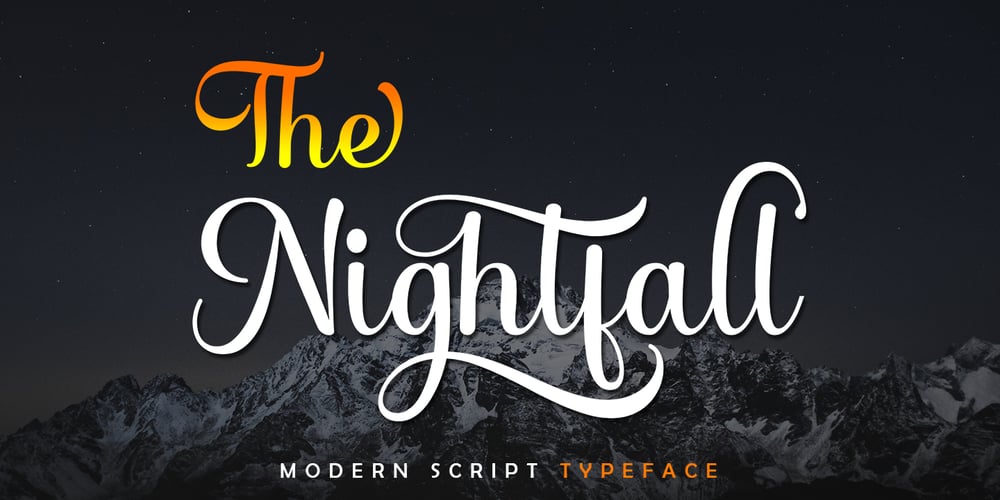
The Nightfall Font Family was designed by Muhajir and published by Skinny Type. The Nightfall contains 1 styles and family package options. The Nightfall is a romantic typefaces. bold, elegant & fun vintage script font. Can be used for various purposes.such as logos, wedding invitation, t-shirt, letterhead, signage, news, posters, badges etc.The Nightfall features 300+ glyphs and 100+ alternate characters, ligatures, swash and multiple language support.View all glyphs here:http://s28.postimg.org/7osts7ezx/All_Glyphs.jpgTo enable the OpenType Stylistic alternates, you need a program that supports OpenType features such as Adobe Illustrator CS, Adobe Indesign & CorelDraw X6-X7.How to get access alternate glyphs from open type fonts:http://youtu.be/iptSFA7feQ0There are additional ways to access alternates/swashes, using Character Map (Windows), Nexus Font (Windows), Font Book (Mac) or a software program such as PopChar (for Windows and Mac).How to access all alternative characters, using Windows Character Map with Photoshop:https://www.youtube.com/watch?v=Go9vacoYmBw